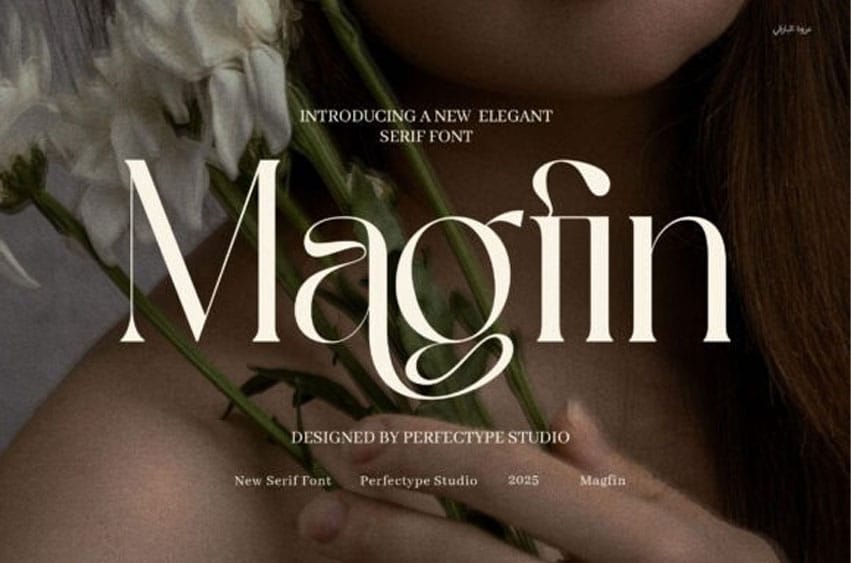
Magfin Font is a contemporary serif typeface designed to bring sophistication, creativity, and a polished edge to your visual projects. With its elegant proportions, high contrast strokes, and signature ligatures, Magfin merges the classic beauty of serif fonts with a bold modern twist.
The charm of Magfin lies in its distinctive shape. Each character features finely tapered serifs, smooth transitions, and subtle curves that lend a sense of movement and balance. Its graceful structure is complemented by creative ligatures and a rich selection of alternate forms, allowing designers to inject character and customization into their typography. The combination of clean lines and ornate touches makes Magfin a standout choice for designs that require both elegance and personality.